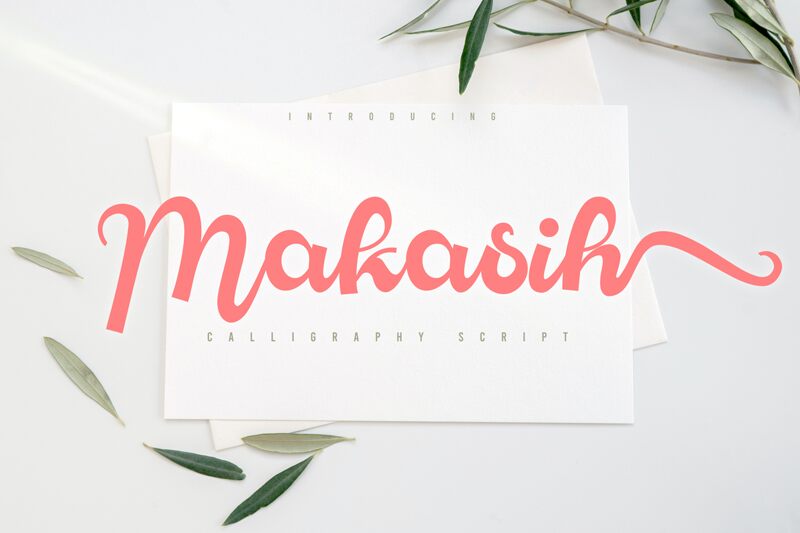
Makasih, designed by Mozyen Studio, is an elegant semi-bold calligraphy font that adds a touch of sophistication to any project.
With its graceful curves and flowing lines, this font is perfect for wedding invitations, romantic quotes, and luxury branding. Its versatility makes it suitable for diverse projects such as fashion magazines, beauty blogs, and high-end product packaging. Makasih's semi-bold weight ensures legibility while maintaining its delicate appeal.
Whether you want to add a touch of elegance or create a luxurious atmosphere, Makasih is the ideal choice for your design needs.